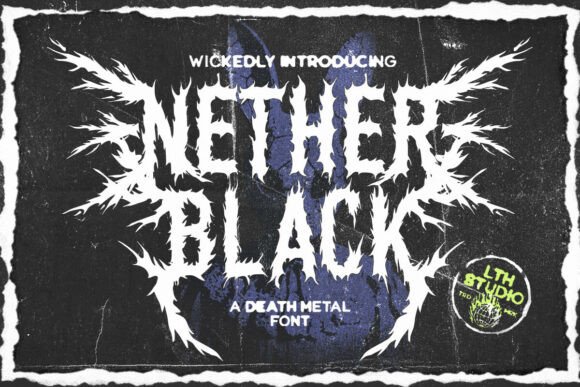
Nether Black: The Ultimate Font for Aggressive and Dark Visual Projects
When it comes to making a bold visual statement, especially in the realms of extreme music, horror media, or underground art, typography plays a crucial role. One font that stands out for its raw intensity and chaotic energy is Nether Black. Designed with death metal aesthetics in mind, this font delivers a visceral experience through its jagged, thorn-like letterforms and distressed textures. Whether you're creating album covers, posters, logos, or other dark-themed visuals, Nether Black brings an unmatched level of aggression and artistic edge.
The Aesthetic Power of Nether Black
Nether Black isn't just another typeface—it's a full-on expression of rebellion and darkness. Each character is crafted with sharp angles and brutalist flair, giving it a look that screams from the shadows. The font’s design channels the spirit of underground culture and extreme music, making it a go-to choice for designers who want to evoke emotion without holding back.
What makes Nether Black so compelling is its ability to blend form and function. While many fonts aim for clarity and readability, Nether Black embraces chaos. Its irregular shapes and heavy contrast between strokes and gaps create a sense of movement and menace. This aesthetic isn’t just about looking good; it's about feeling something. It taps into the primal energy of death metal, where every note and lyric is meant to provoke and unsettle.
Why Choose a Death Metal-Inspired Font?
Fonts are more than just tools for communication—they’re emotional triggers. In the world of design, the right typeface can set the tone for an entire project. For genres like death metal, which thrive on intensity and raw power, a font must match that vibe. Nether Black does exactly that by delivering a visual punch that complements the auditory one.
- It creates instant visual impact.
- Its aggressive style aligns perfectly with dark themes.
- It adds a layer of authenticity to underground projects.
Features That Make Nether Black Unique
Beyond its striking appearance, Nether Black is packed with features that make it versatile for a wide range of applications. Here’s what sets it apart:
- Uppercase and Lowercase Characters: Despite its chaotic nature, the font maintains functionality by including both uppercase and lowercase letters. This allows for greater flexibility when designing text-heavy materials like song lyrics or band bios.
- Numbers and Punctuation: Every element needed for clear communication is present, ensuring you can use it for everything from track listings to event details without compromising on style.
- Alternates and Ligatures: These stylistic variations let you customize your designs further. With alternates, you can switch up certain characters to add even more grit and unpredictability to your layout. Ligatures help maintain the flow and cohesion of the text while keeping the wild edge intact.
- Multilingual Support: Nether Black isn’t limited to English. It includes glyphs for various languages, allowing international artists and designers to work in their native tongue without losing the font’s aggressive identity.
- PUA Encoding: This advanced feature gives access to additional symbols and special characters not found in standard Unicode. It's perfect for adding unique flourishes or customizing your message with exclusive elements.
Practical Applications of Nether Black
Though it may seem niche at first glance, Nether Black has broad practical uses across multiple industries. Here are some common scenarios where it shines:
- Album Covers and Band Merchandise: For death metal bands, the font offers a way to visually represent their sound. It’s ideal for cover art, t-shirts, and promotional materials that need to scream intensity.
- Posters and Event Flyers: Concert posters, festival flyers, or horror movie advertisements benefit from Nether Black’s eye-catching presence. It commands attention and fits naturally into high-contrast, black-and-white layouts.
- Logos and Branding: If you're launching a brand centered around rebellion, darkness, or edgy aesthetics, this font can serve as a strong visual anchor. Its versatility allows it to be used in both small-scale logo work and large-scale banners.
- Horror-Themed Content: From book covers to game titles, Nether Black enhances the atmosphere of fear and dread. It's a powerful tool for creators in the horror genre who want to amplify the tension with every word.
How to Use Nether Black Effectively
Using Nether Black requires a balance between creativity and control. While the font is designed to be wild, overusing it can lead to cluttered or unreadable designs. Here are some tips to harness its potential without sacrificing usability:
- Use it sparingly in long-form text. It works best for headlines, short phrases, or emphasis within larger compositions.
- Pair it with simpler sans-serif or serif fonts to avoid overwhelming the reader. Let Nether Black take center stage in the most impactful parts of your design.
Whether you're crafting an album cover that needs to scream, designing a poster that demands attention, or building a brand around rebellion, Nether Black offers the perfect foundation. By understanding its strengths and limitations, you can use it effectively to elevate your designs and connect with audiences on a deeper level.